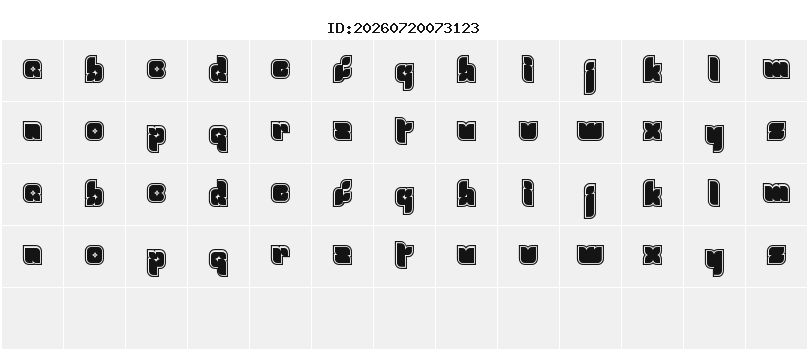
fresh mint Preview
• Font Name: fresh mint
• Full Font Name: fresh mint
About fresh mint.ttf
fresh mint.ttf is a modern, elegant sans-serif font designed for ultimate readability and visual harmony. Perfect for branding, headlines, web design, and print materials.